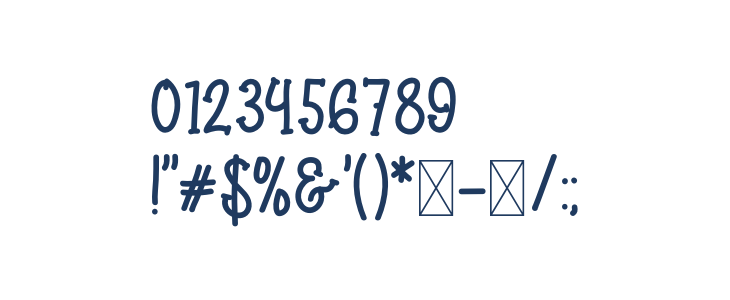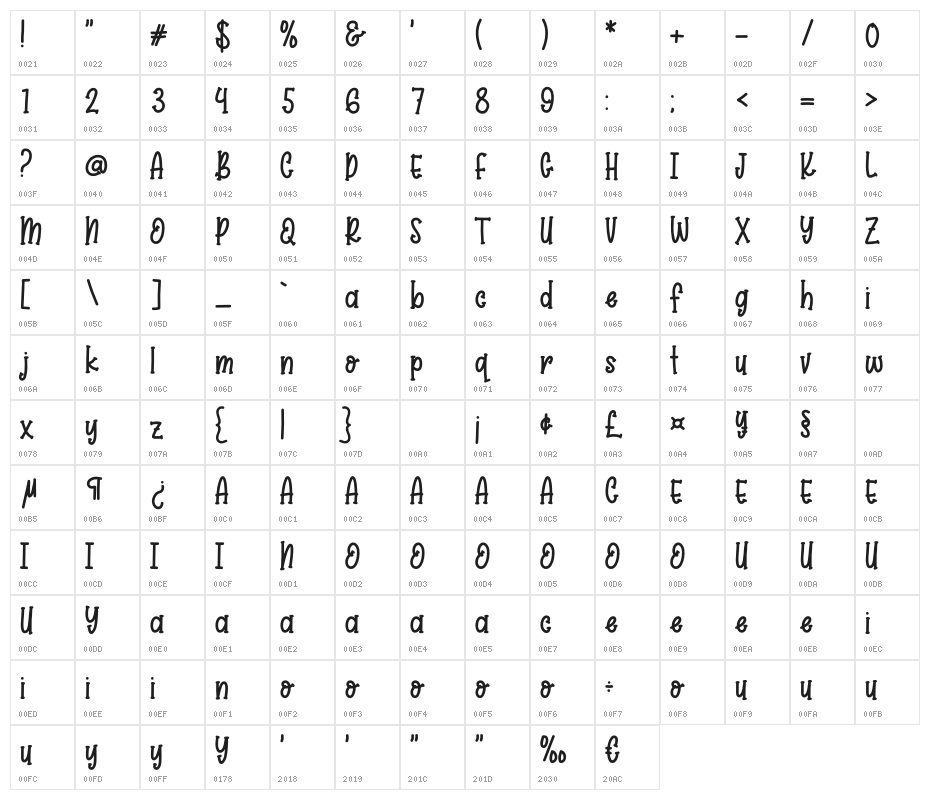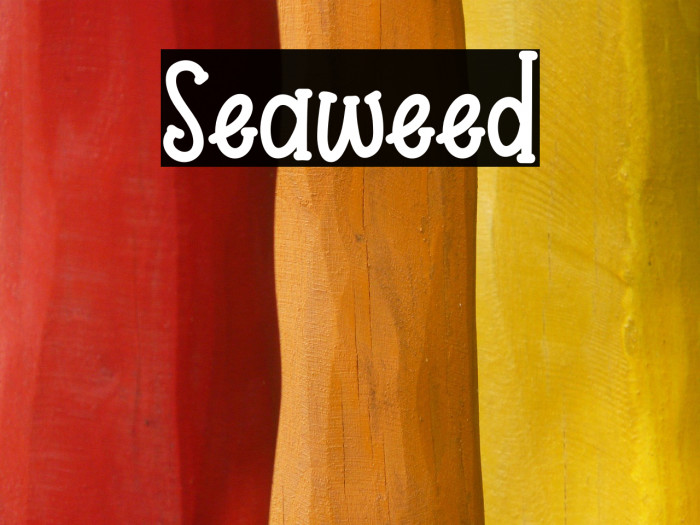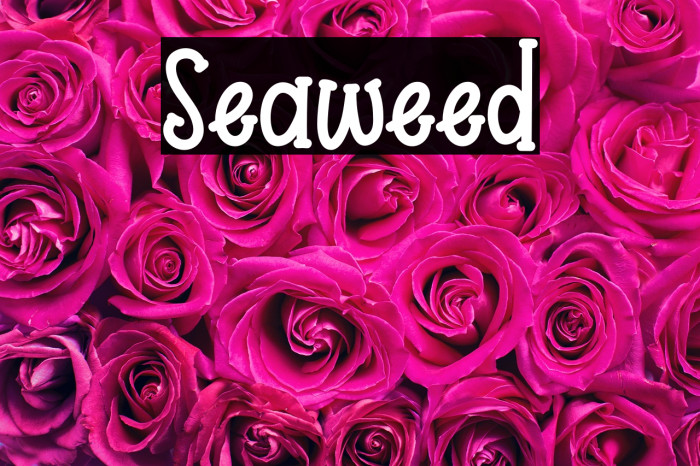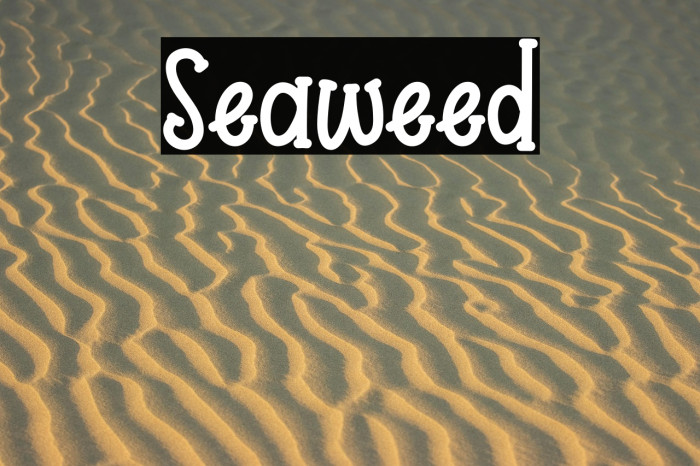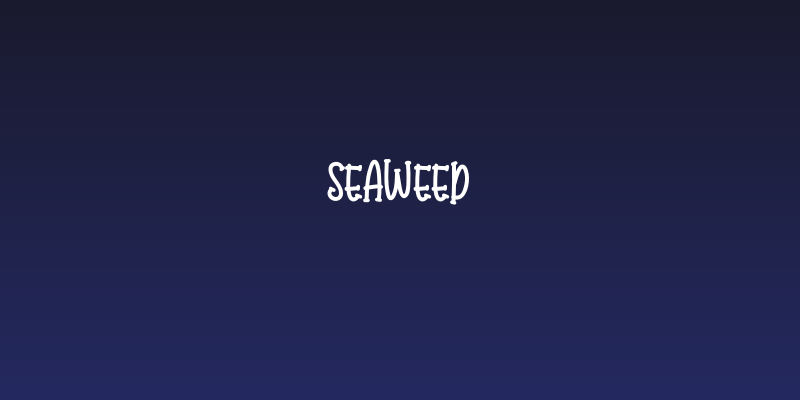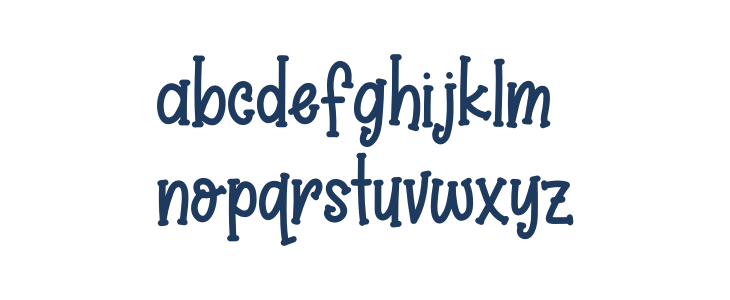
Seaweed Font
Seaweed Description
This playful and whimsical font features a hand-drawn, organic style with a slightly uneven baseline, giving it a lively and dynamic appearance. The characters are bold and rounded, with a casual, friendly feel that suggests a sense of fun and creativity. The uppercase and lowercase letters maintain a consistent style, with the uppercase being slightly larger and more pronounced. The numerals and special characters are designed to match the overall playful aesthetic, making them suitable for a variety of informal and creative projects.
| Proposed Projects | Ideal for children's books, playful branding, greeting cards, and creative posters. |